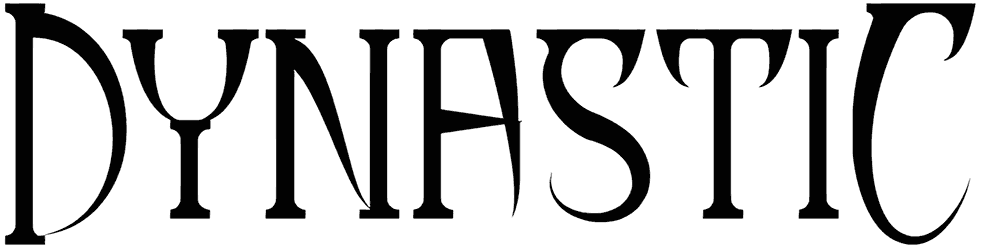
Dynastic Font
It won’t be too difficult to give your design a fantasy and mythic vibe, which will undoubtedly be very charming. Dynastic is a gothic font that can appear unrivaled in combination with your creative mind.
Without the necessity for lowercase letters, numbers, or punctuation, two versions of Dynastic don’t lack in displaying your designs like flyers, movie screens, and foregrounds, and can handle it well.